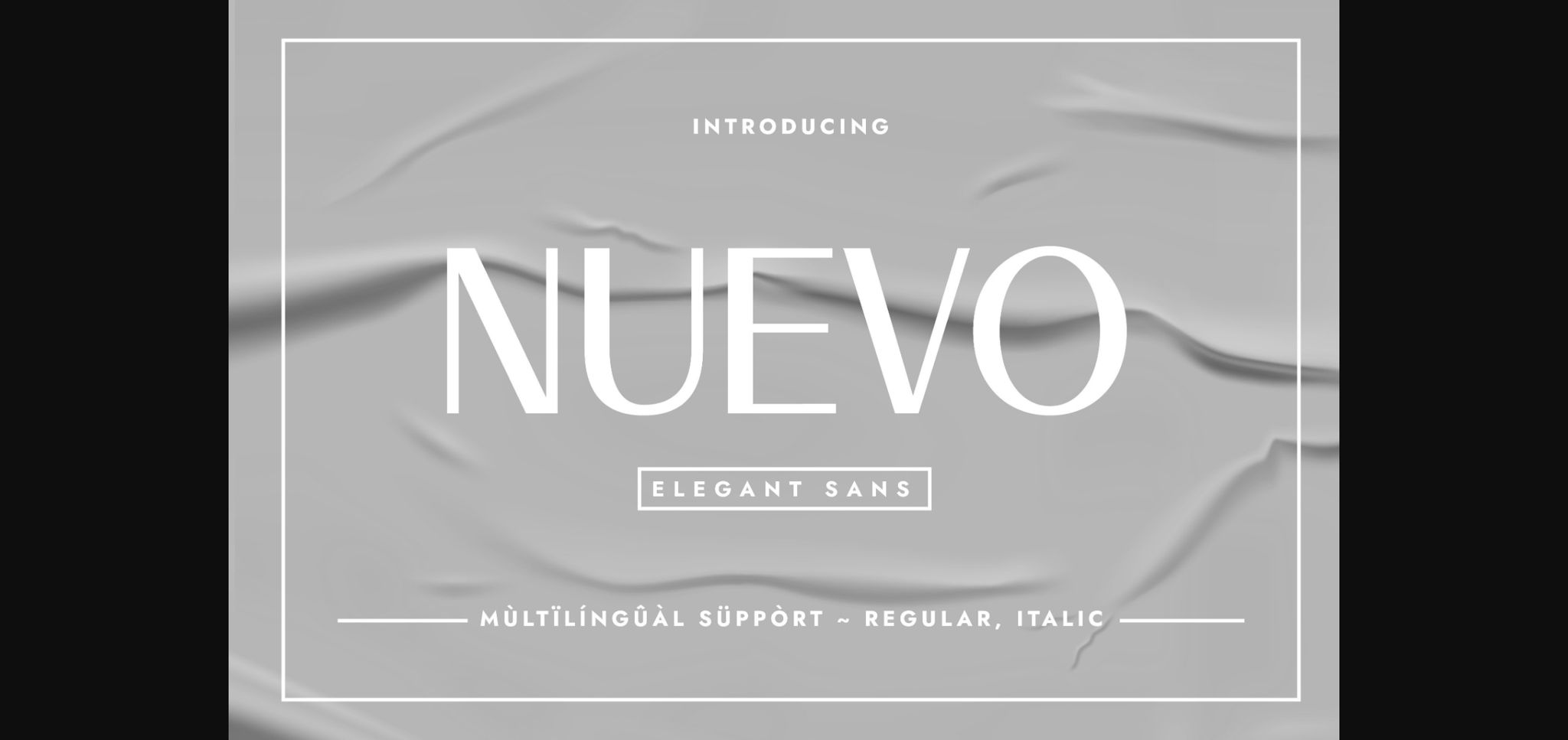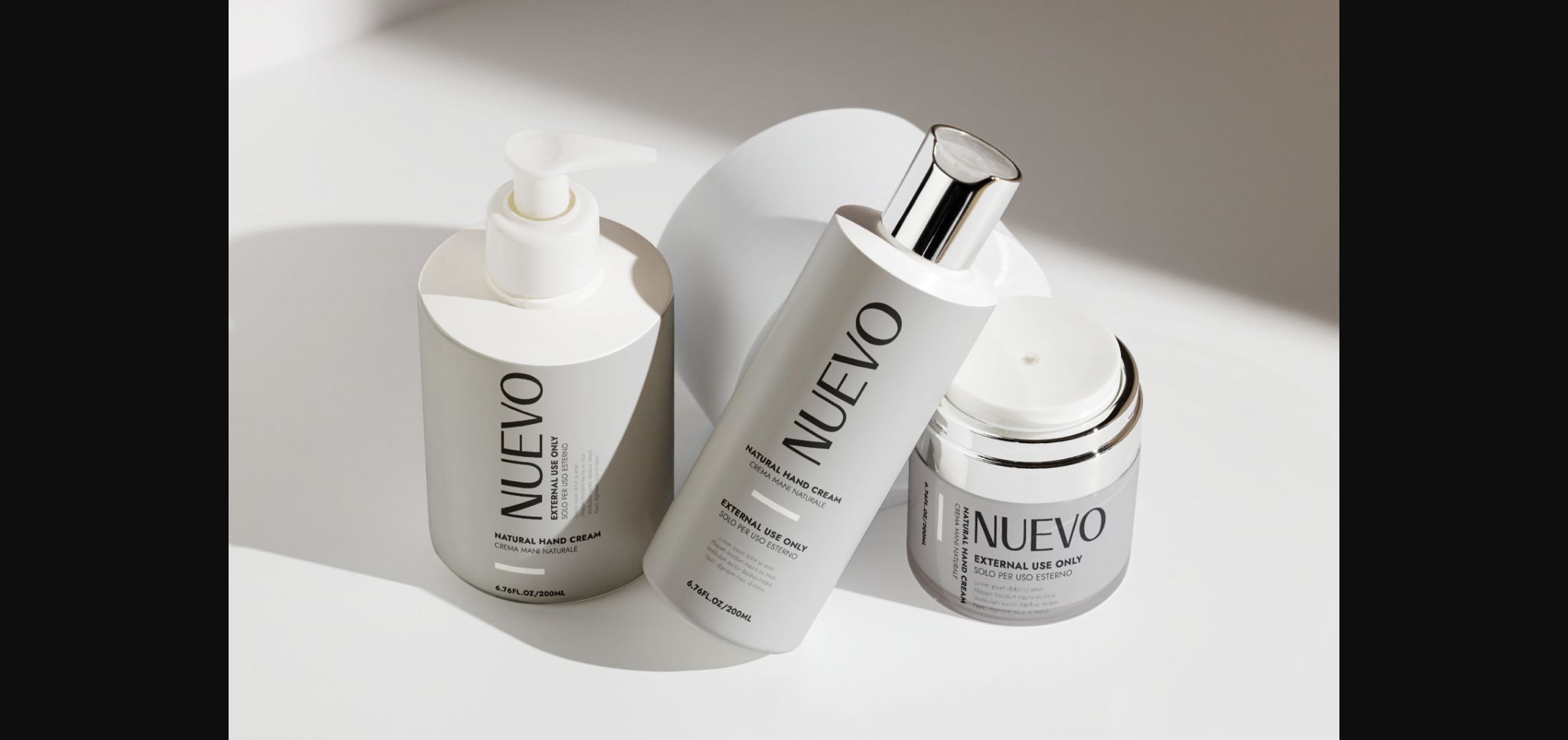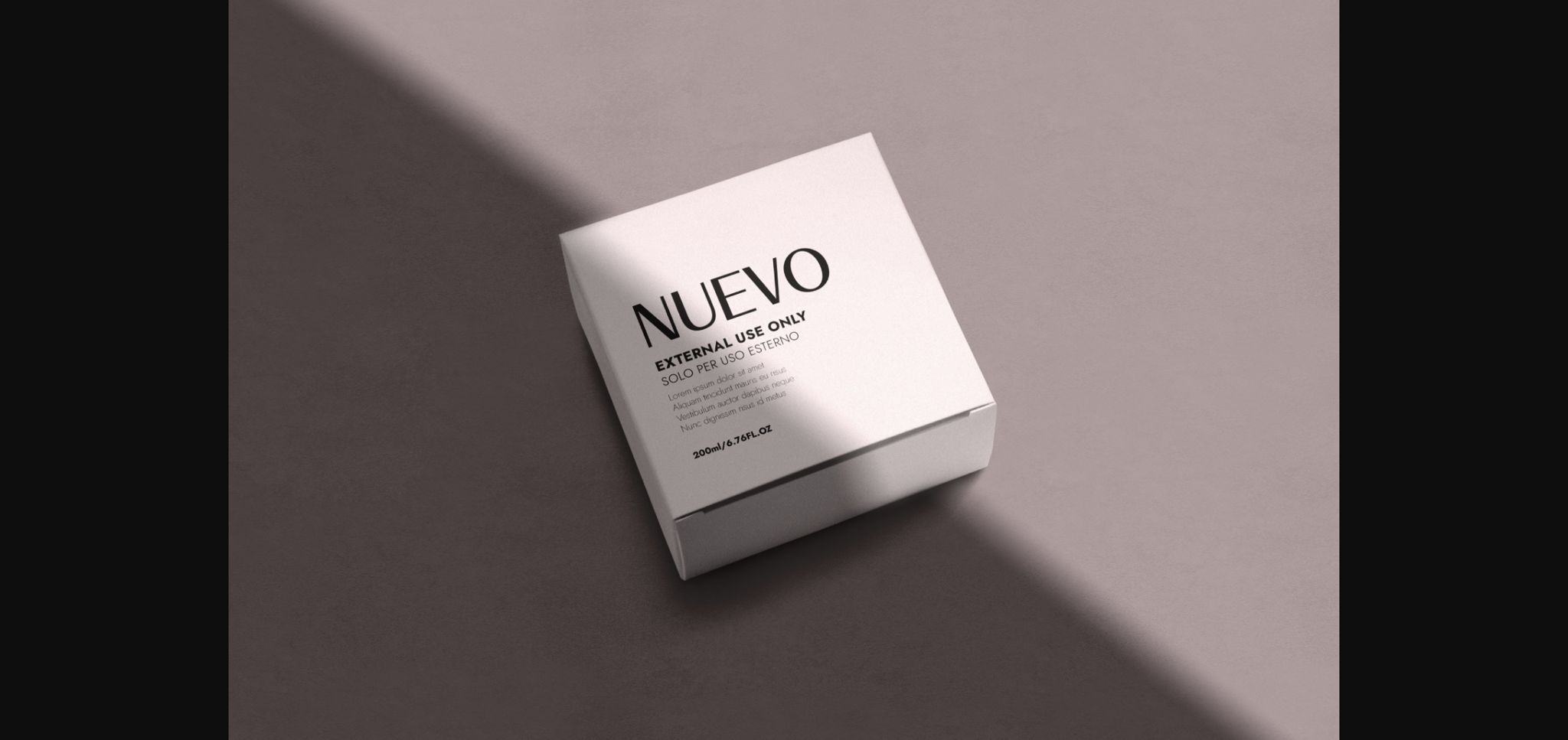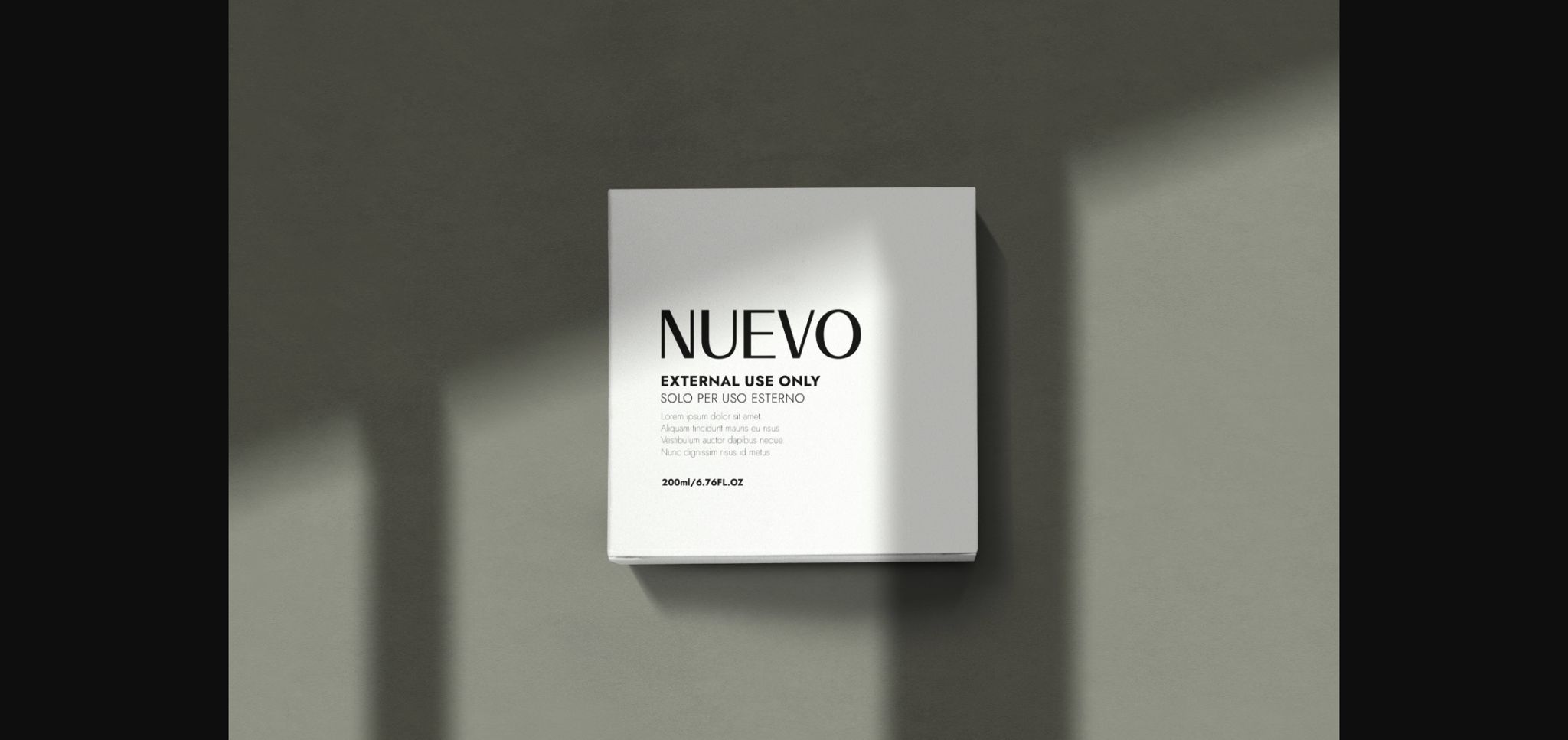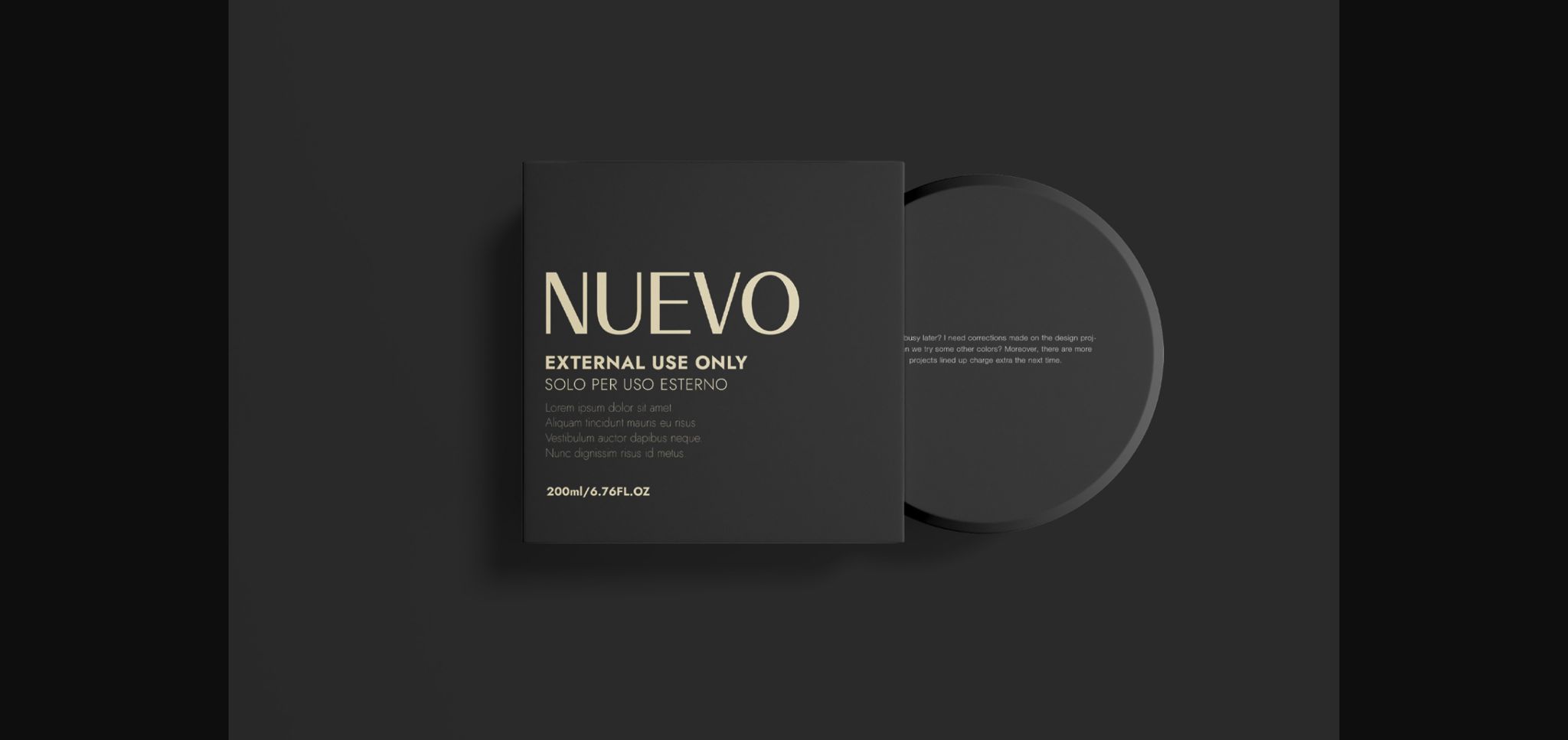
About Nuevo Font
Nuevo is a minimalist, clean and elegant sans serif typeface. It comes with both regular and italic effects. It amazingly fits a lot of design themes such as packaging design, cosmetics design, invitations, wedding, quotes design, etc. Use it in your creation, and notice how it makes them stand out!